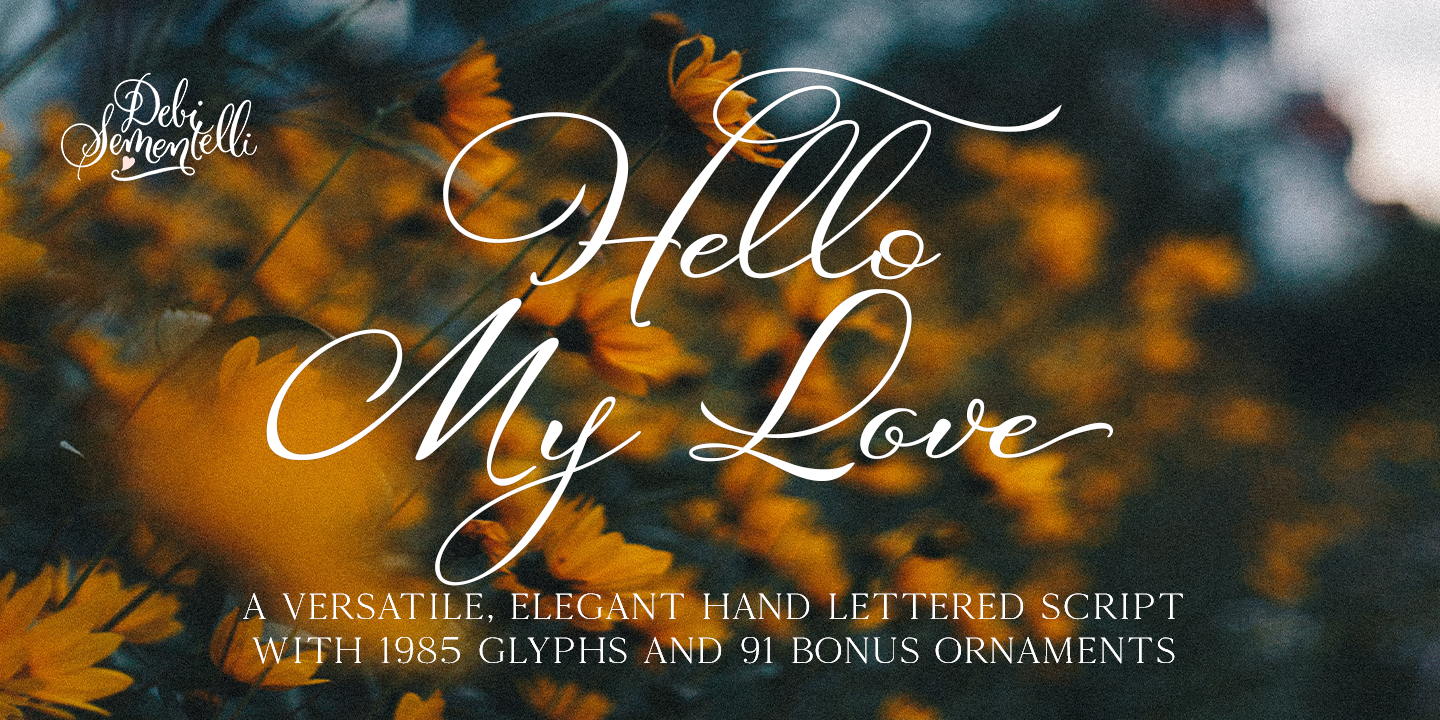
Hello My Love Pro Font is an exquisite choice for projects that demand a sense of heartfelt warmth, delicate charm, and a distinctly modern, elegant handwritten aesthetic. It's perfectly suited for romantic wedding invitations, personalized greeting cards, charming social media graphics, bespoke gift items, and any design where you want to evoke a feeling of genuine affection, intimate connection, and artistic flair. Imagine it gracing a unique engagement announcement, adding a personal touch to a heartfelt letter, or giving a distinctive, handcrafted personality to a small business that values warmth and authenticity. Its flowing lines and graceful ligatures ensure your message is conveyed with both profound beauty and undeniable sentiment.
What makes Hello My Love Pro Font so exciting is its remarkable ability to blend the natural flow of handwritten script with a refined, contemporary readability. It captures the essence of a truly personal touch, making it ideal for designs that aim to feel tender, authentic, and genuinely memorable. This font isn't just about conveying text; it’s about creating an atmosphere of gentle romance and delicate artistry, bringing a sense of spontaneous creativity and genuine character to your visuals. It's the ideal tool for designers who want their work to feel personal, inviting, and truly stand out with a touch of charming individuality.
The Hello My Love Pro Font family typically offers a comprehensive range of stylistic variations to enhance its artistic versatility, often including numerous alternates, ligatures, and swashes that allow for extensive customization. You'll find a standard "Regular" weight that showcases its beautiful script, along with perhaps a "Bold" version or even a complementary "Sans" style to pair perfectly. These features allow for creating truly unique typographic compositions, ensuring that the Hello My Love Pro Font Free Download can be the cornerstone of a truly unique and powerfully thematic visual identity, helping your designs stand out with an undeniable sense of character and profound elegance.